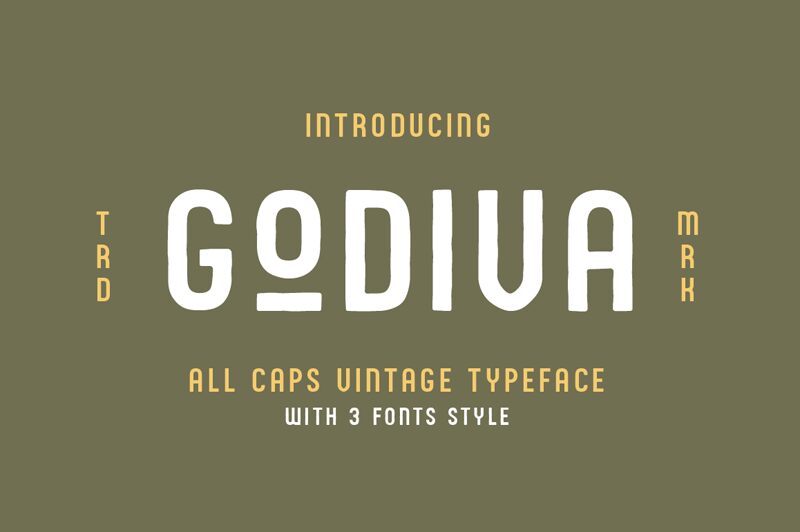
Godiva Reguler
Looking for a sleek and modern font that's perfect for any project? Meet Godiva, the semi-bold, condensed sans serif font from designer Teguh Subiyantoro. With its clean lines and distinctive style, Godiva is the ideal choice for a wide range of projects - from corporate branding to website design and everything in between. Whether you're looking to create bold headlines or elegant body text, this versatile font has you covered. So why wait? Give Godiva a try today and see just how easy it is to take your designs to the next level!